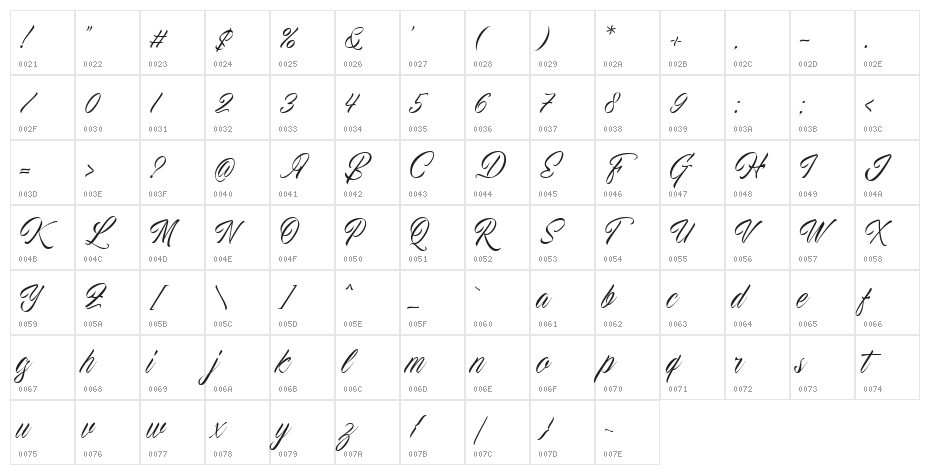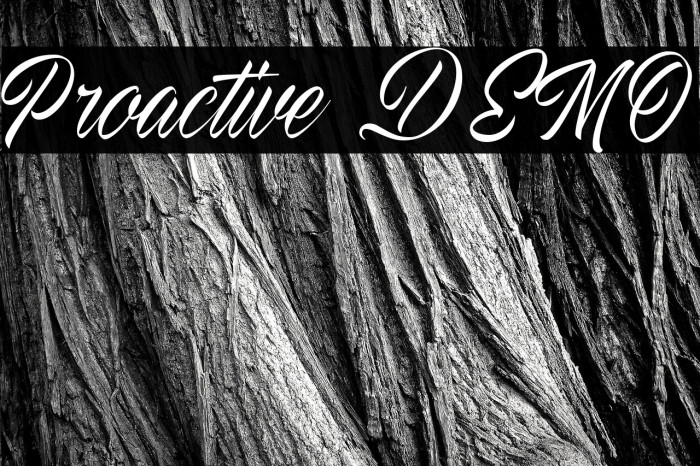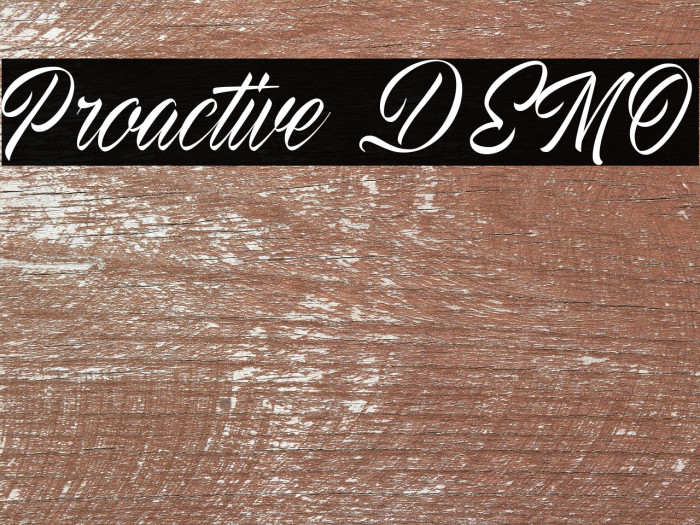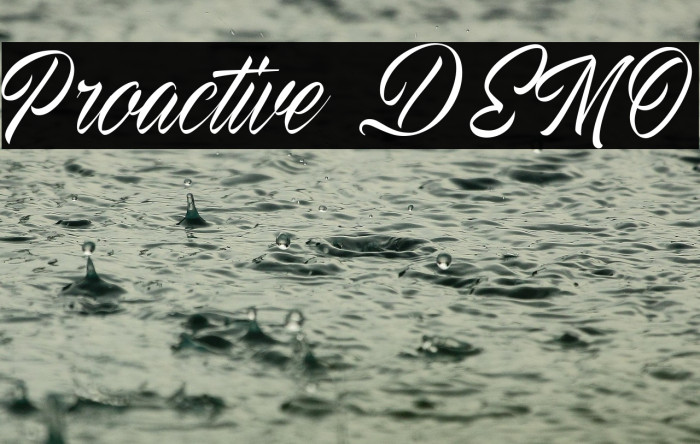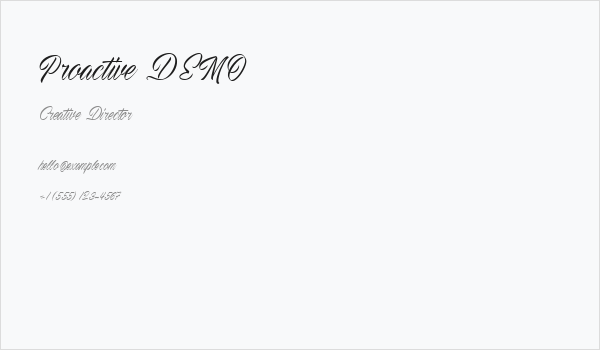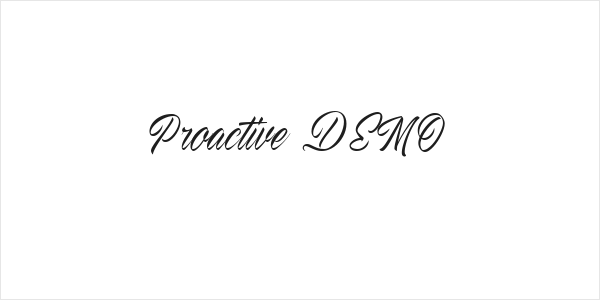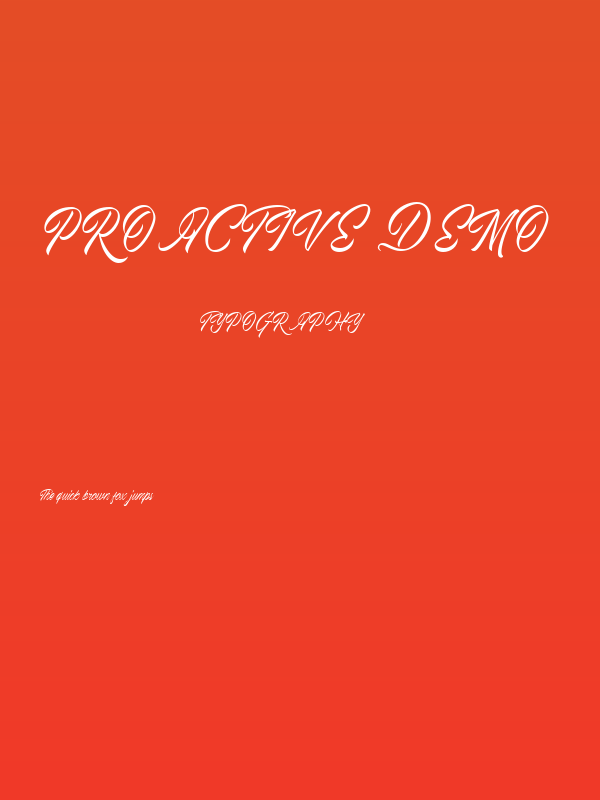
Proactive DEMO Font
Proactive DEMO Description
This font exudes elegance and sophistication with its flowing, cursive style. The characters are intricately designed, featuring smooth curves and delicate loops that give it a handwritten appearance. The uppercase letters are particularly ornate, with flourishes that add a touch of grandeur. The lowercase letters maintain a consistent style, ensuring readability while preserving the font's artistic flair. Numbers and special characters are crafted with the same attention to detail, making them seamlessly integrate with the alphabet. This font's overall aesthetic is both classic and stylish, ideal for projects that require a personal, elegant touch.
| Overall Style | Classic |
| Use Case | Logos, Invitations, Decorative text |
| Proposed Projects | Ideal for wedding invitations, greeting cards, branding, and elegant packaging designs. |